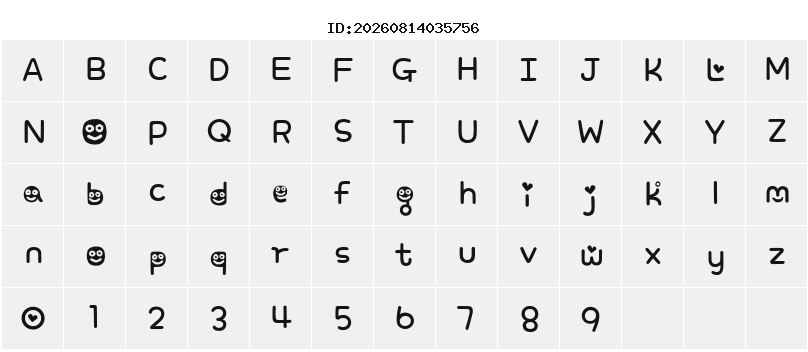
Sweet Smile Preview
• Font Name: Sweet Smile
• Full Font Name: Sweet Smile
About Sweet Smile.ttf
Sweet Smile.ttf is a modern, elegant sans-serif font designed for ultimate readability and visual harmony. Perfect for branding, headlines, web design, and print materials.